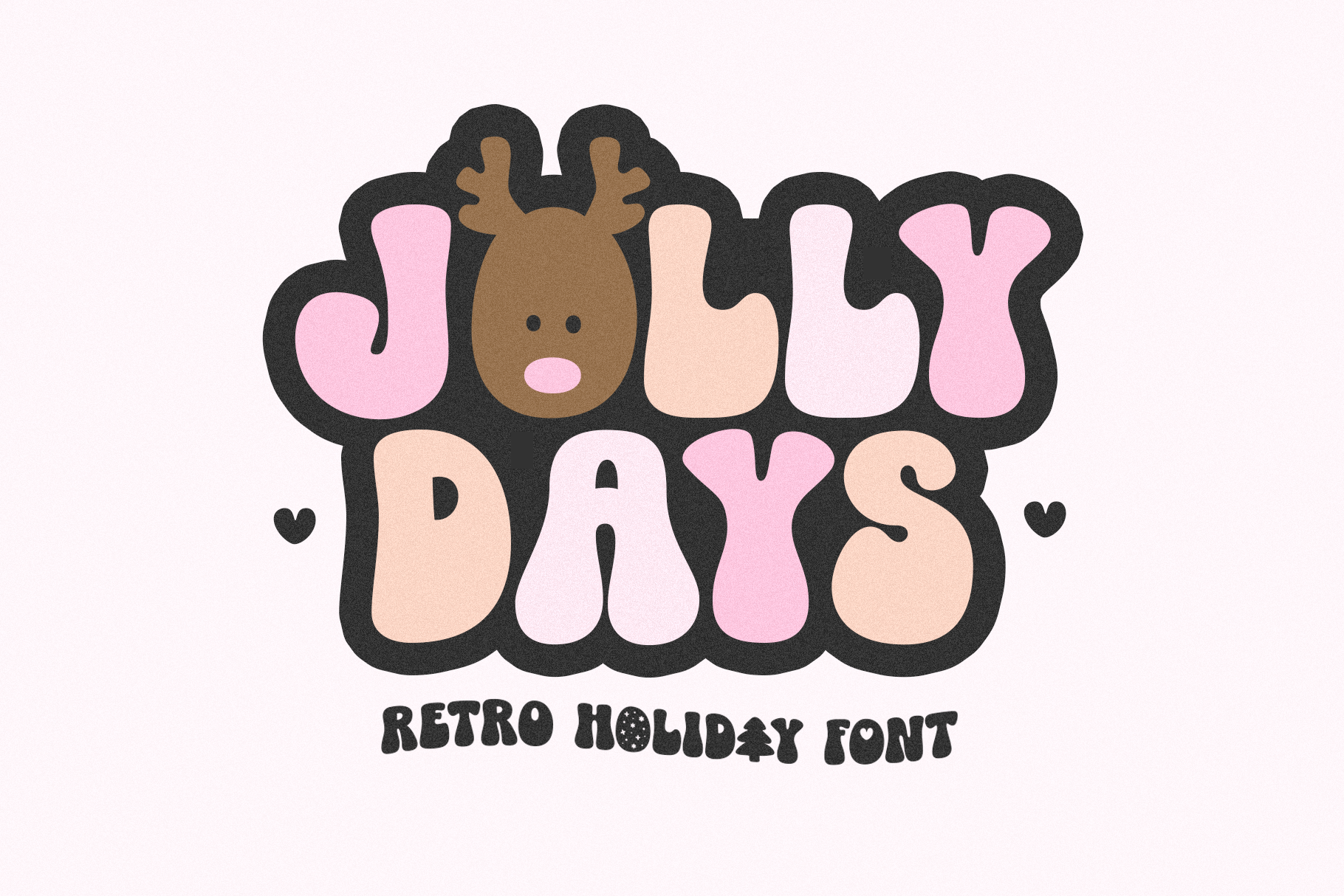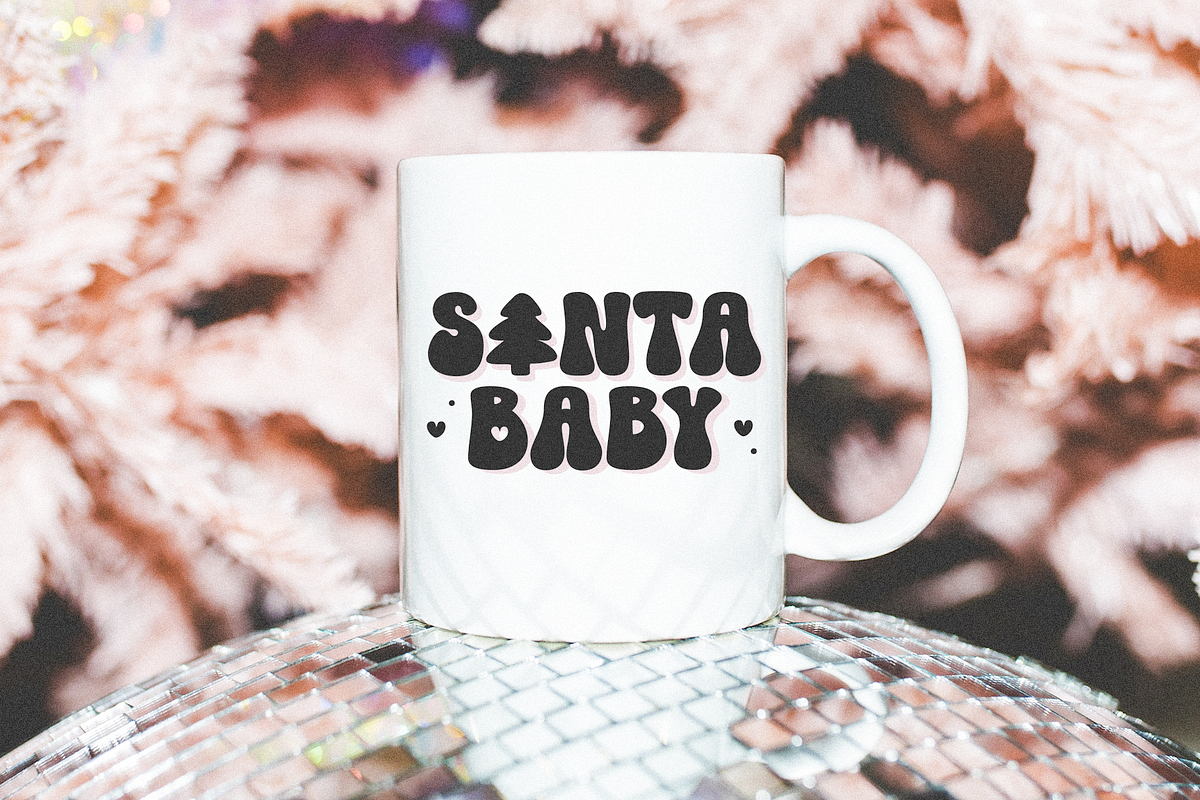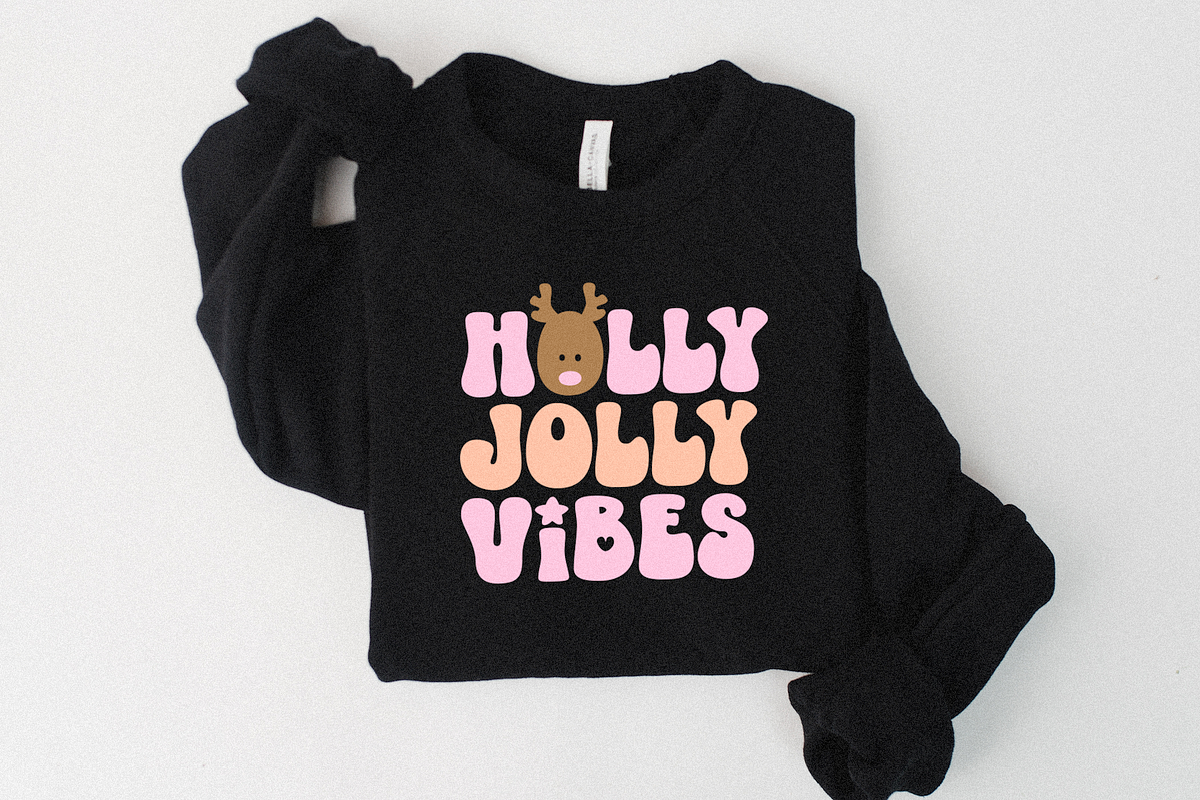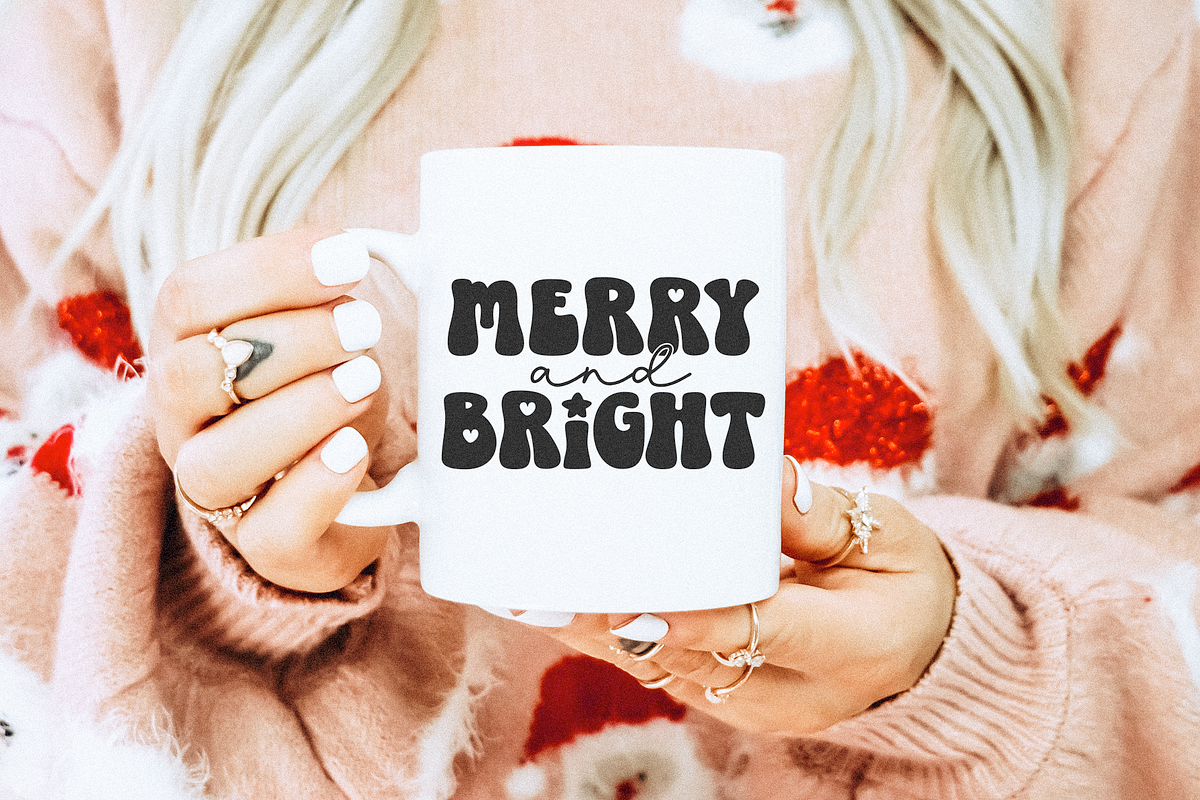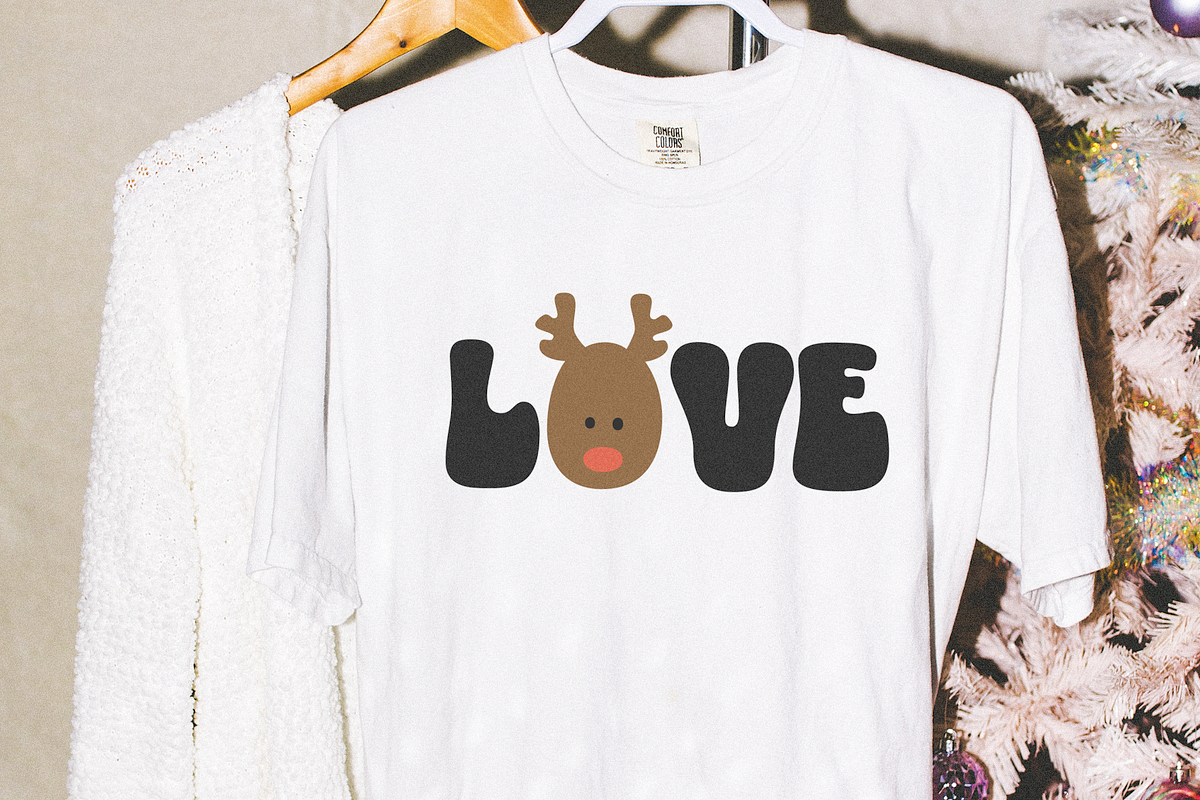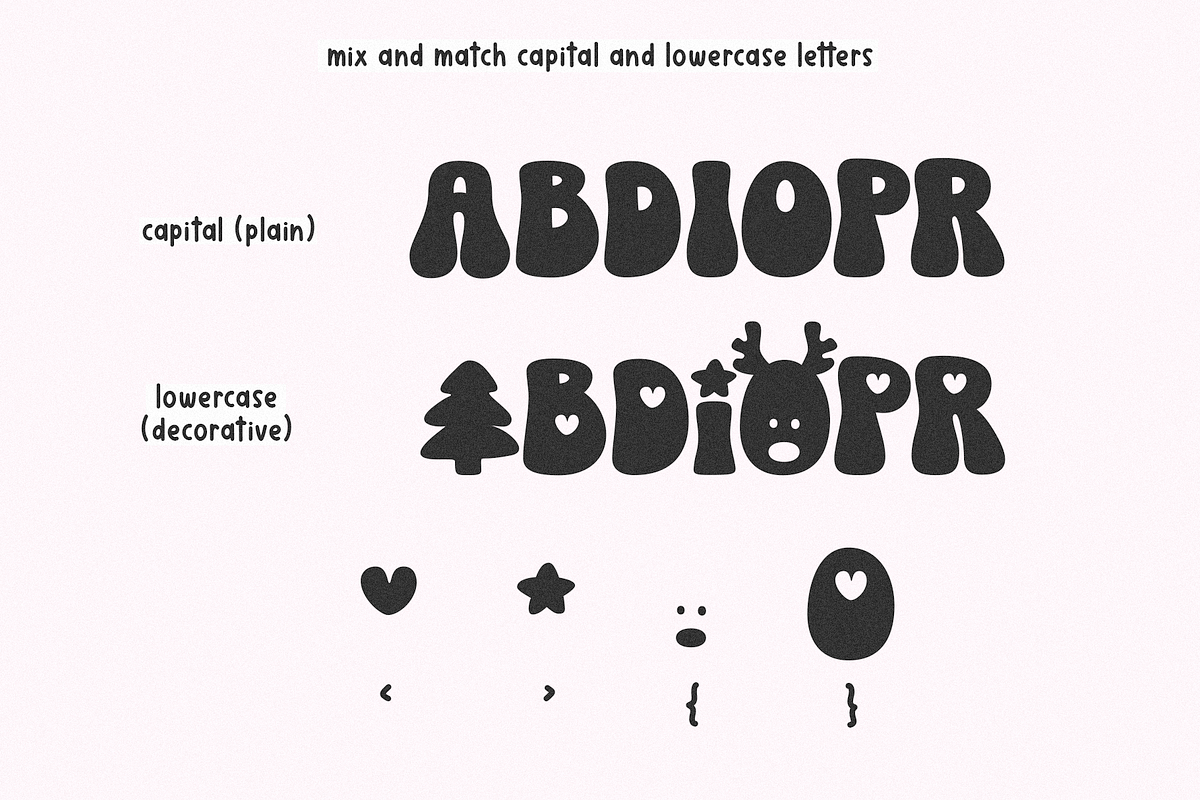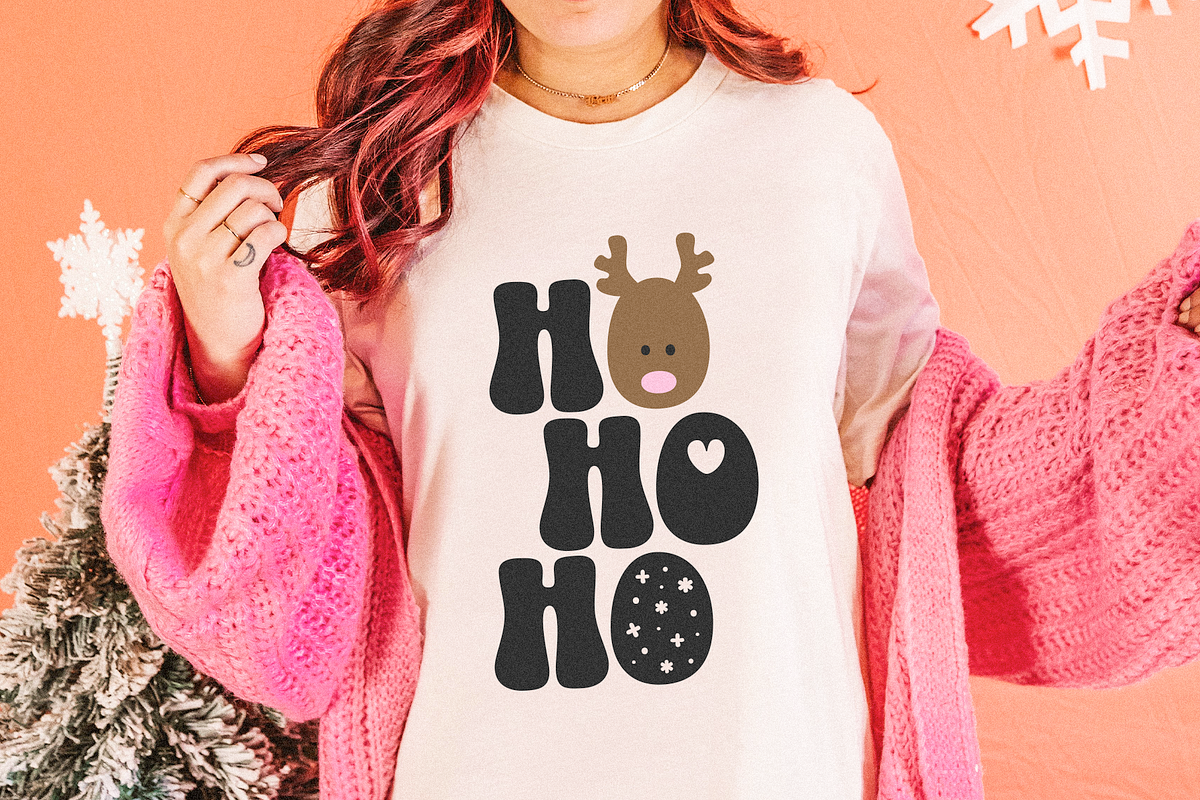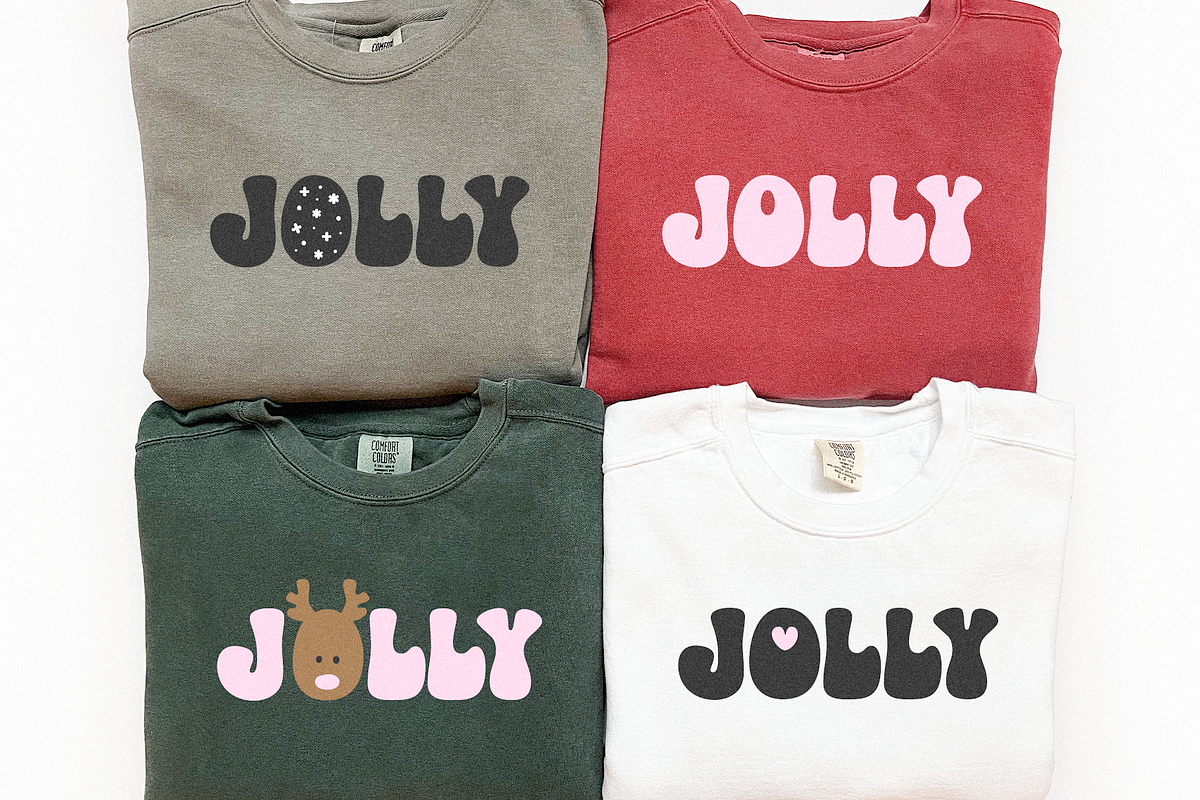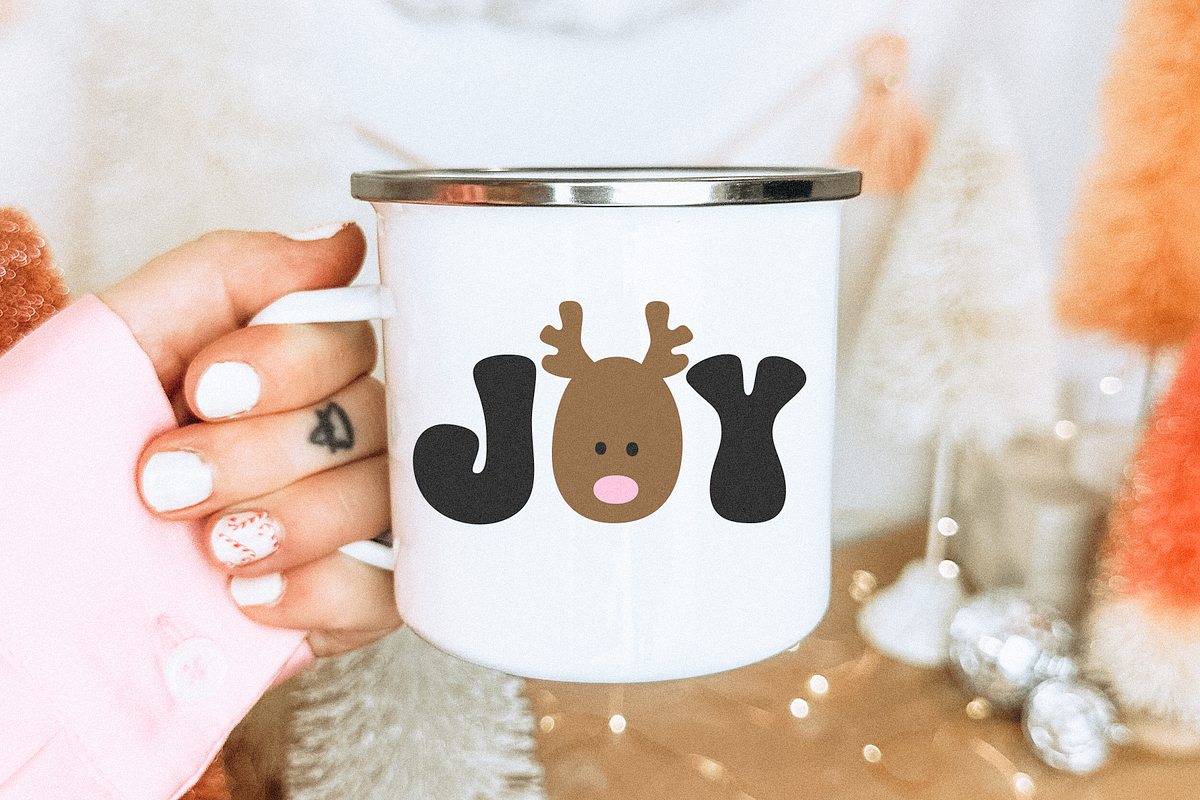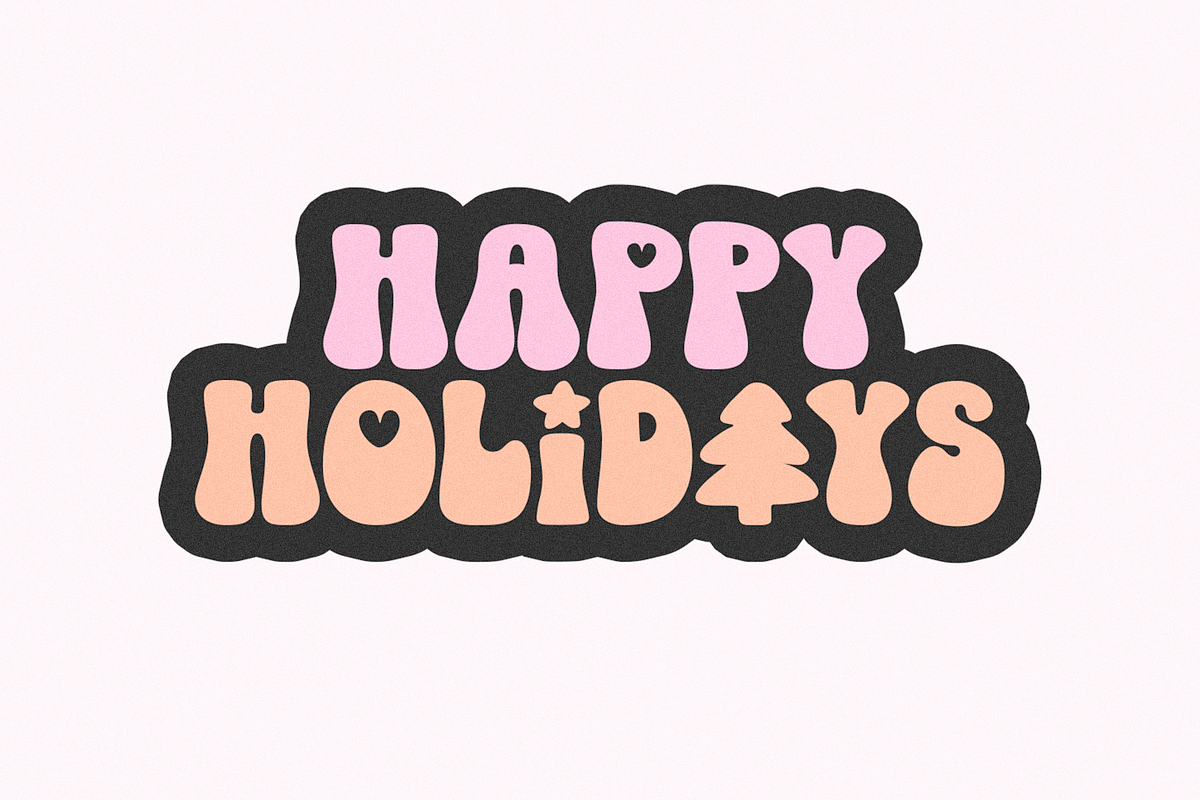
Jolly Days | Retro Christmas Font
Jolly Days is a retro font perfect for all of your Christmas designs!
This font includes a basic set of A-Z retro letters and a few extra Christmas themed letters.
This is an ALL CAPS font
Jolly Days is perfect for: retro designs, Christmas shirts, svg files, procreate, stickers, logos, greeting cards, Cricut projects, posters, social media and more!